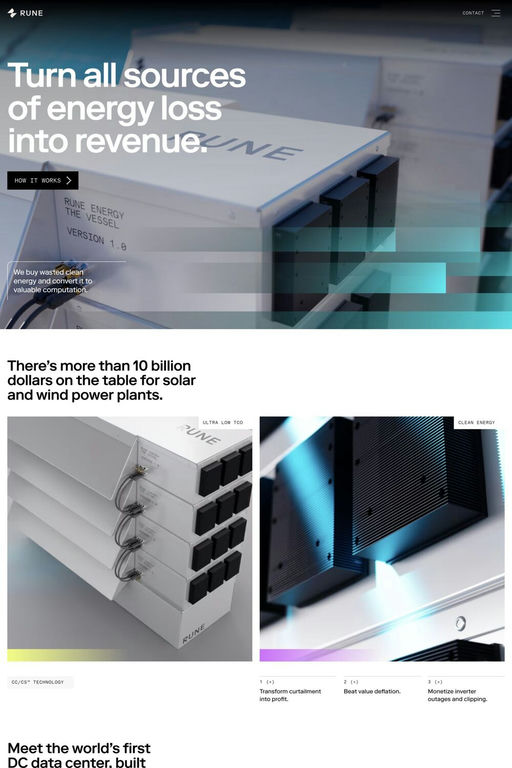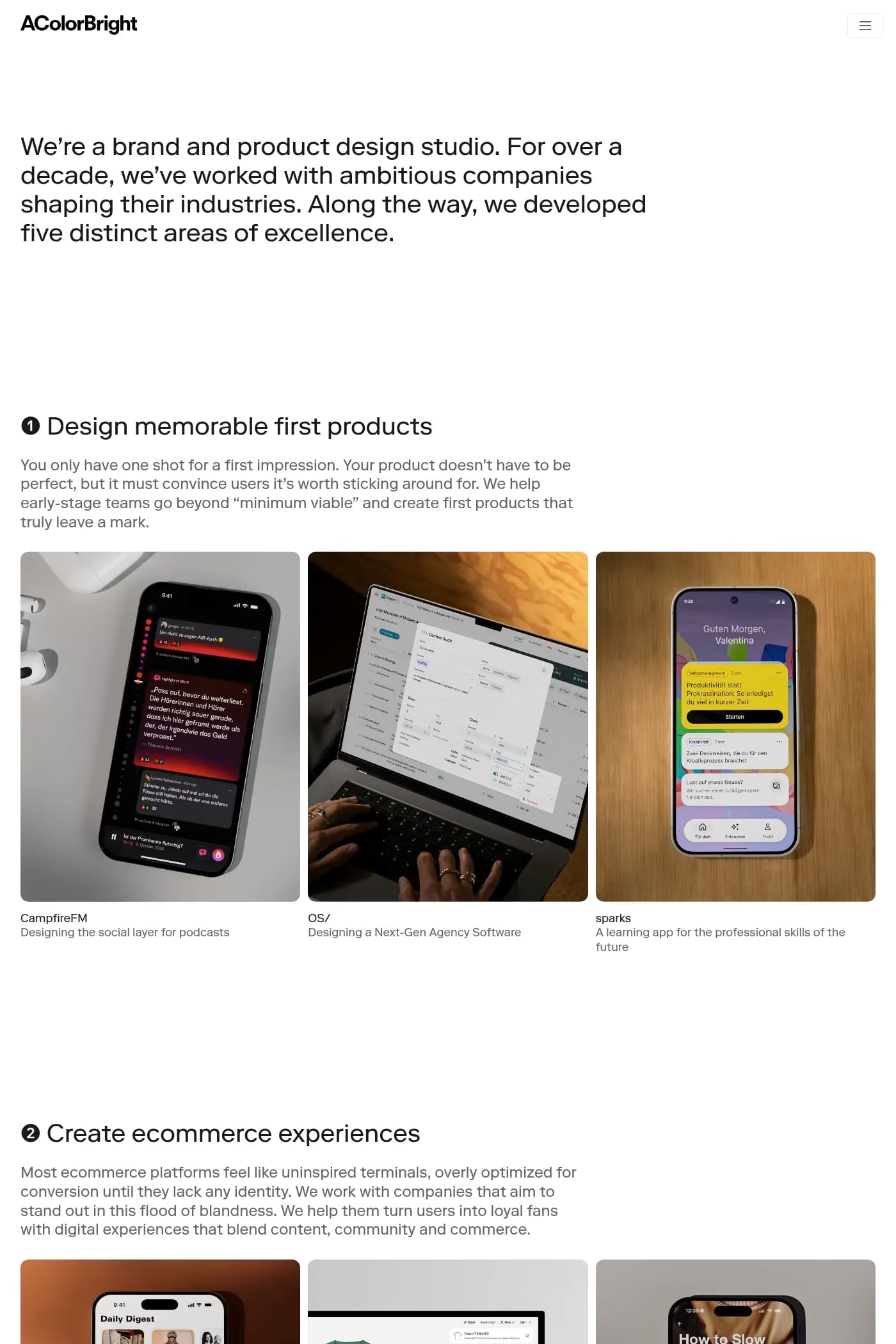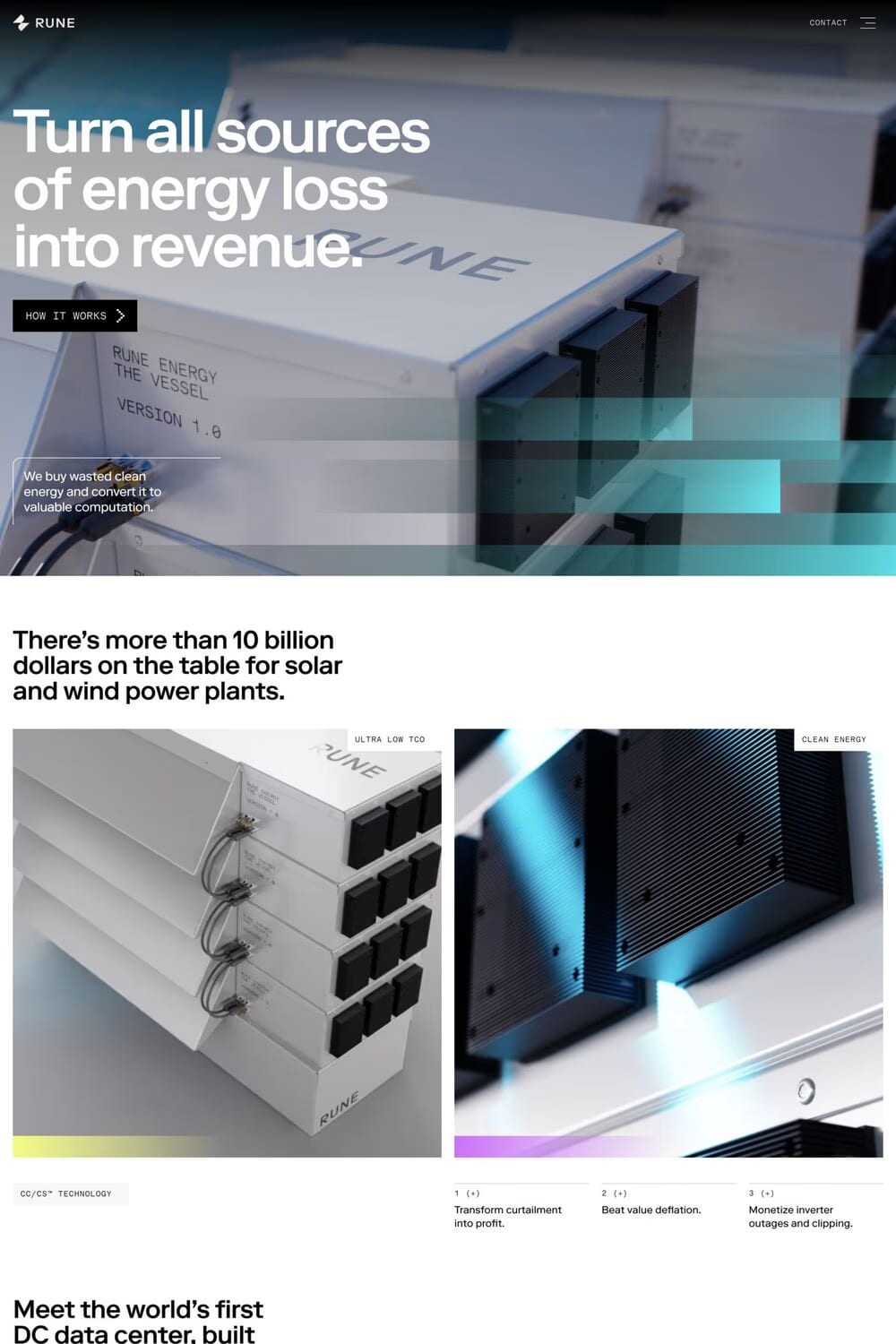
Riforma is a sans-serif typeface from Lineto.
Applying a systematic approach to their design that remains unchanged, NORM crafts typefaces as proprietary tools to supplement their body of work. They shape their tools, which, in turn, shape their work. Developed during five years of methodical application and continuously improved through a relentless practice of trial and error across numerous projects, LL Riforma is now a family of five weights, ranging from light, regular, medium and bold to heavy, including italic cuts.